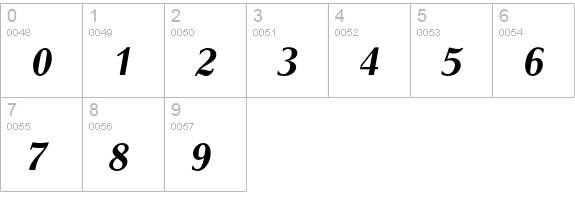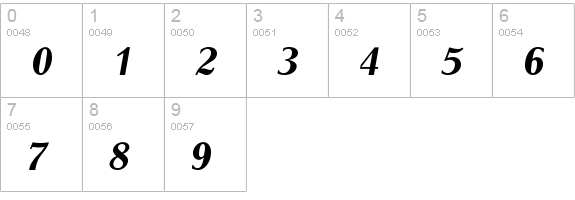
GlobeL-Oblique Font Details
GlobeL-Oblique is a distinctive, italic variant in the GlobeL typeface family \xE2\x80\x94 well suited to design and typography projects.
GlobeL-Oblique font is a stylish and modern typeface that adds a touch of sophistication to any design project. Its sleek and slanted design exudes a sense of elegance and professionalism, making it perfect for a wide range of applications such as branding, advertising, and editorial design. The unique oblique style of GlobeL-Oblique font gives a dynamic and eye-catching appearance to text, making it stand out without being overwhelming. What makes GlobeL-Oblique font even more appealing is that it is available for free download at FontsMarket.com. This means that you can easily access this versatile and high-quality font without any cost, allowing you to enhance your design projects without breaking the bank. With its seamless blend of style and functionality, GlobeL-Oblique font is a must-have for any designer looking to make a bold statement with their typography. Download it today and elevate your designs to the next level.